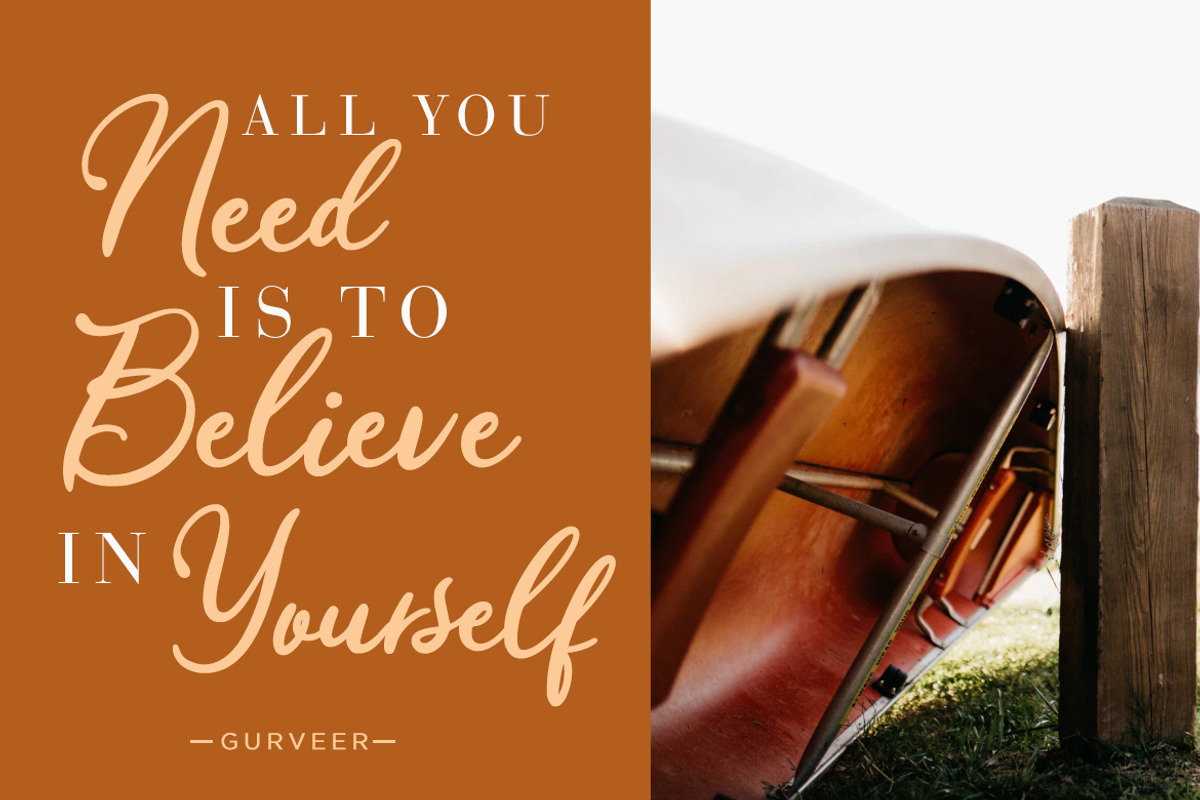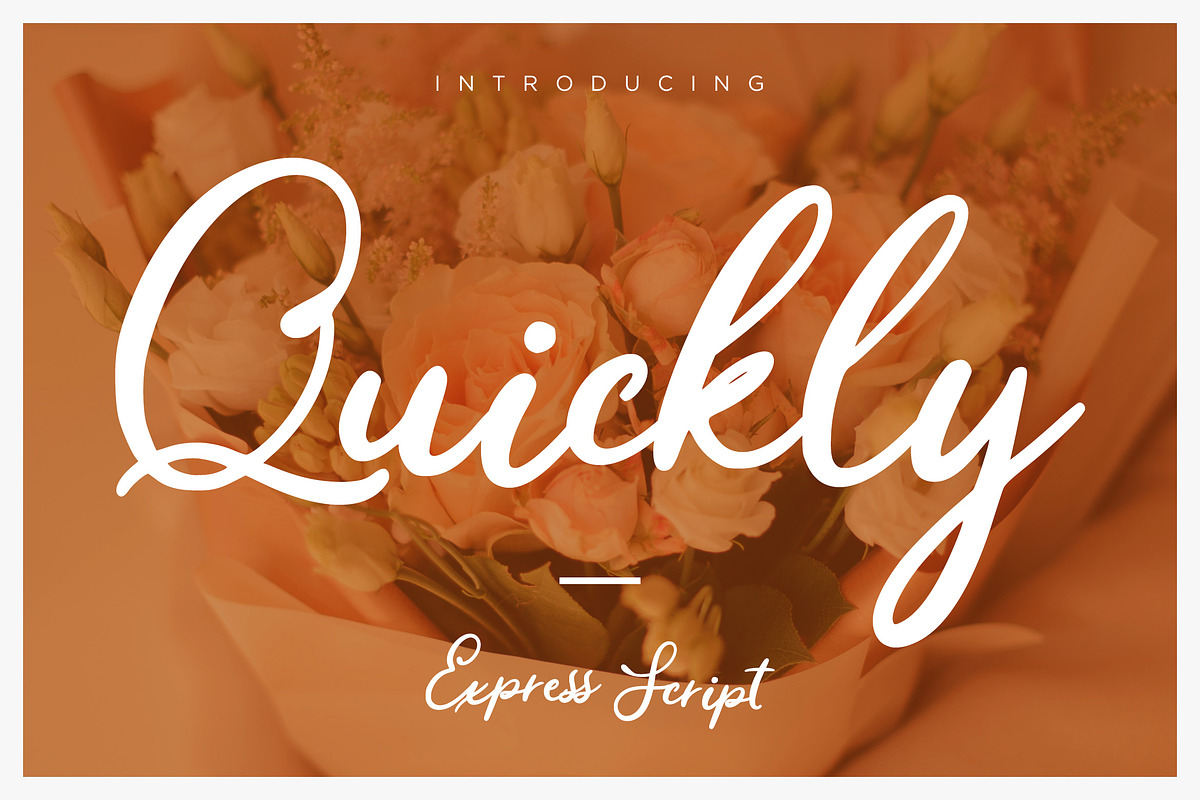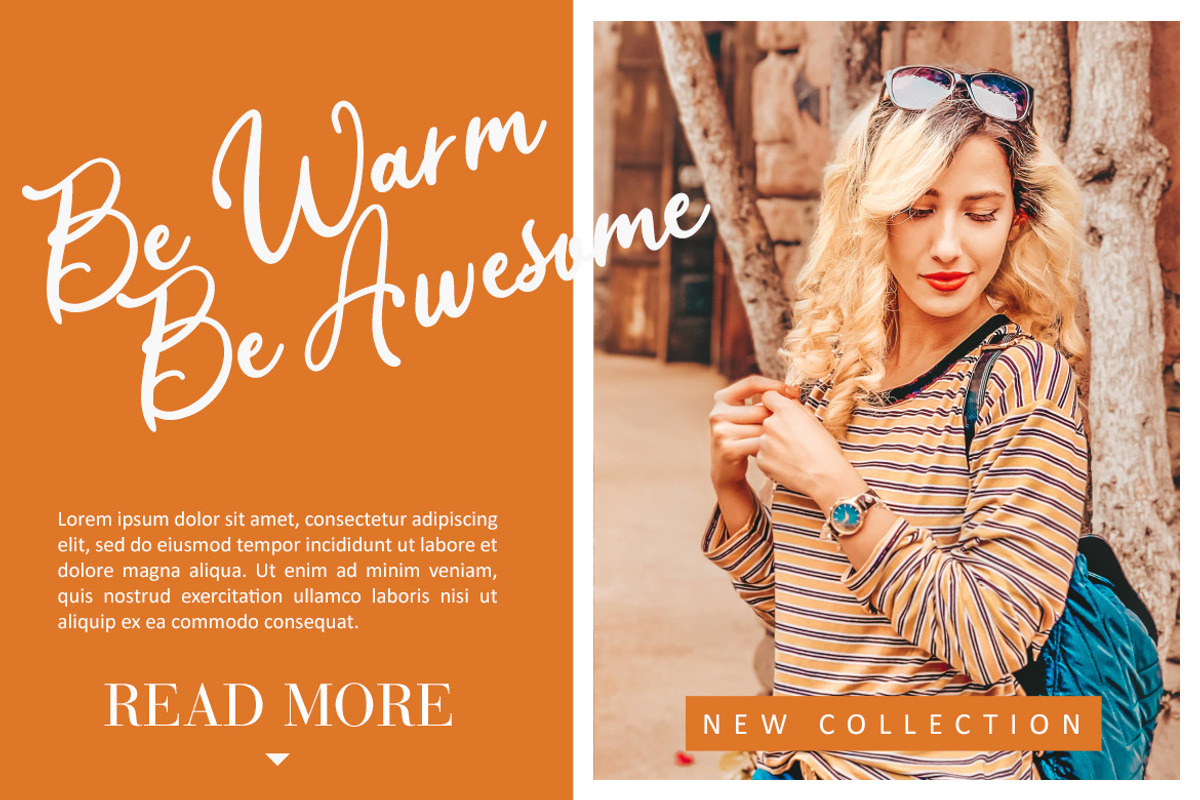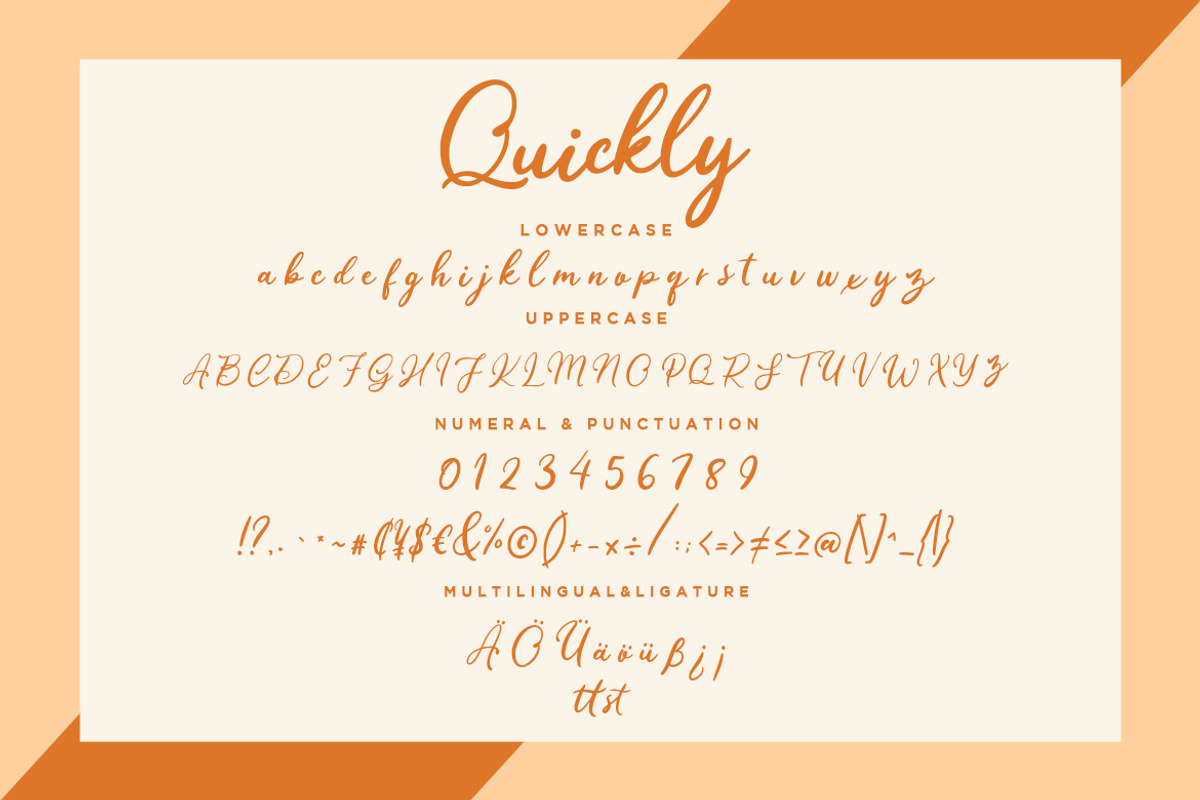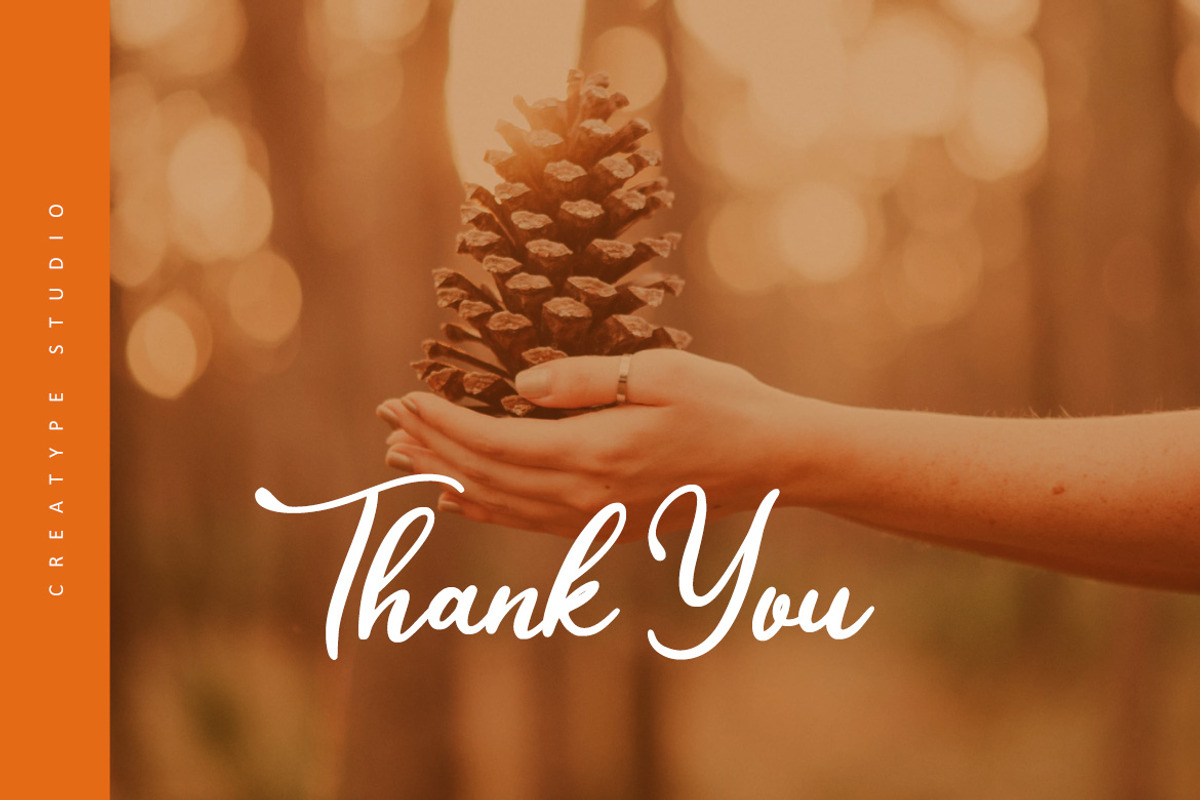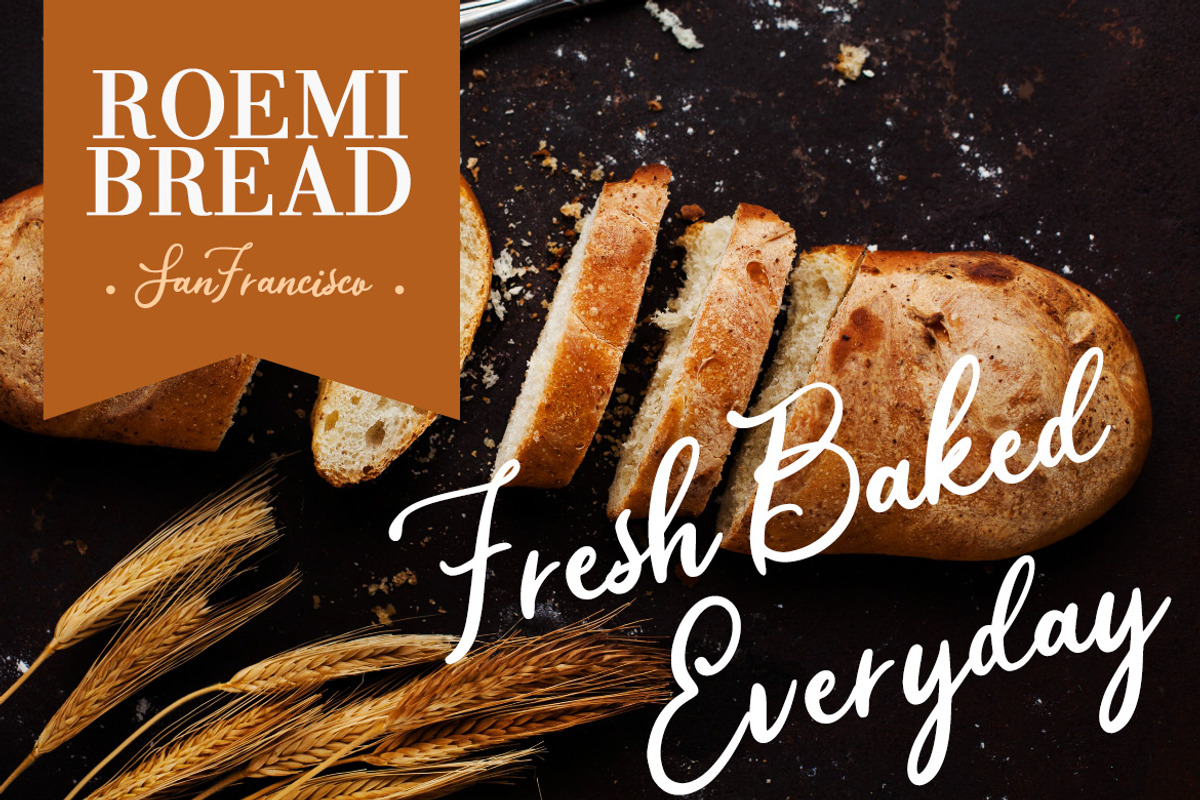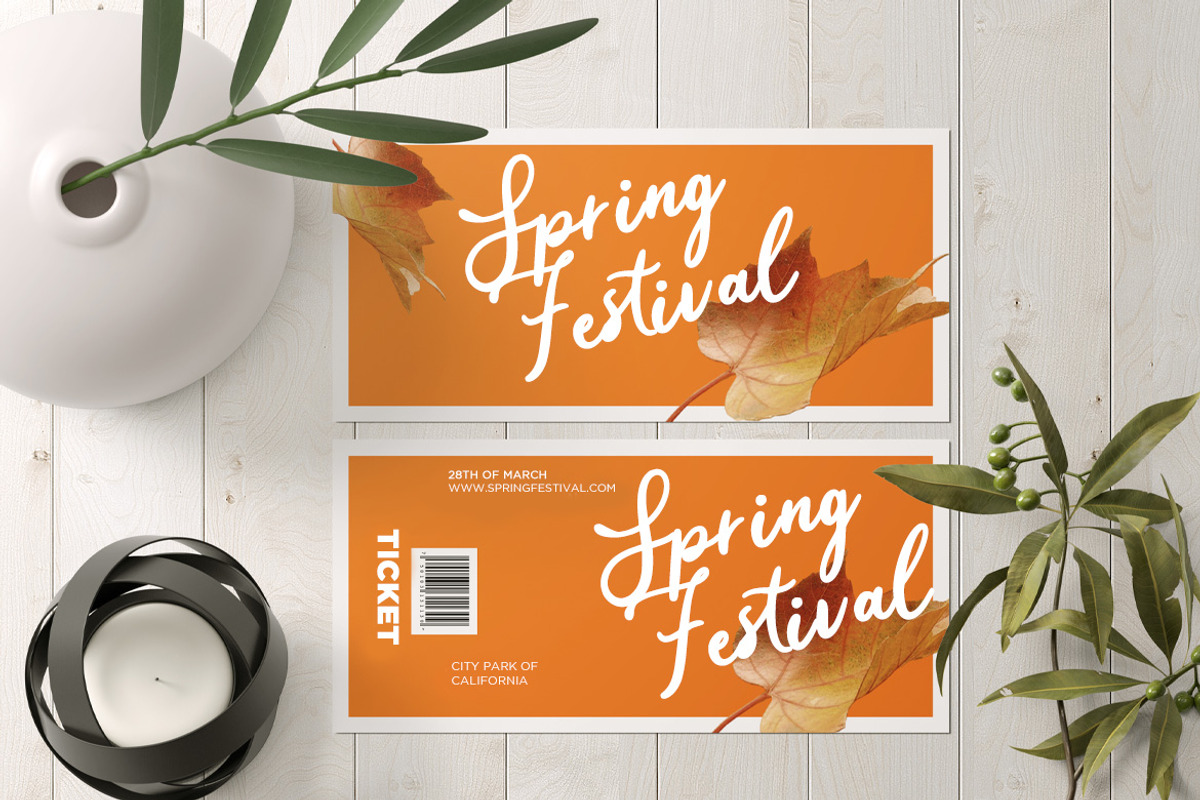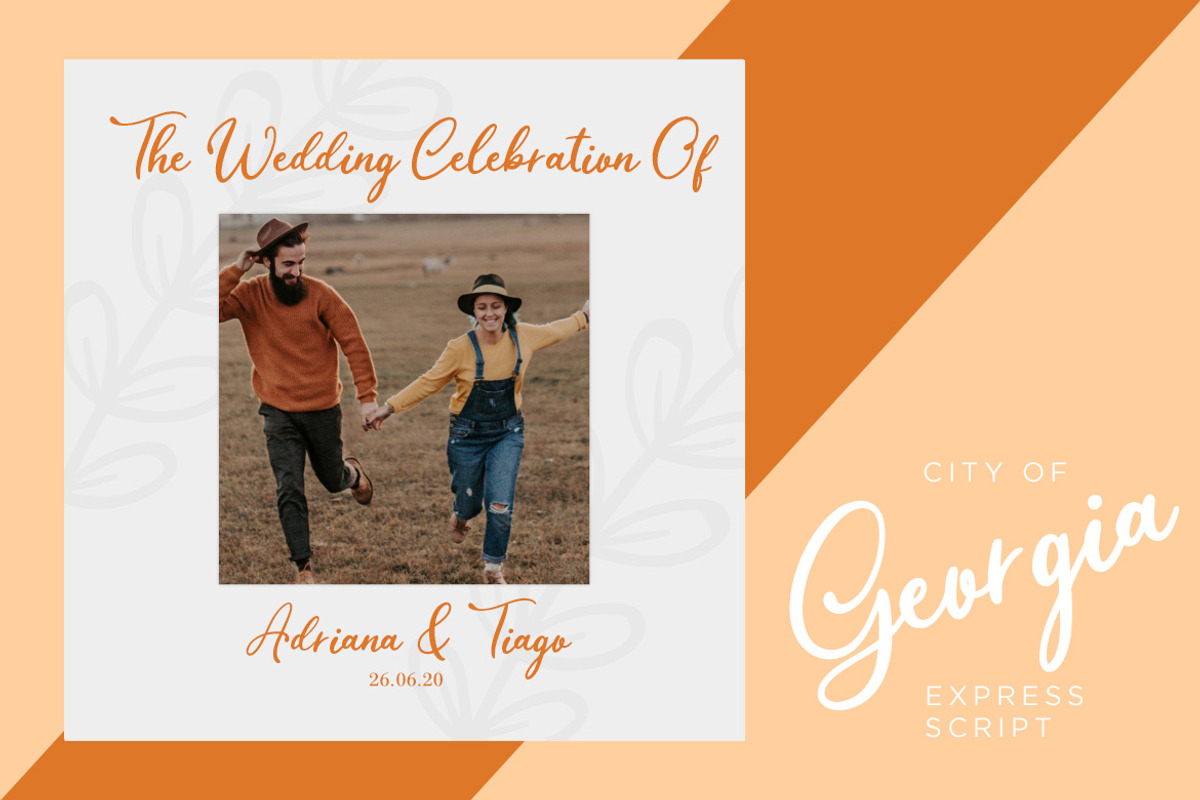
Quickly Express Script Business Font
Quickly is a handwritten signature font with elegant and classy touch for your awesome project.
Quickly is perfect for branding projects, logo, wedding designs, social media posts, advertisements, product packaging, product designs, label, photography, watermark, invitation, stationery and any projects that need handwriting taste.
- Fonts include multilingual support for; ä ö ü Ä Ö Ü ß ¿ ¡
Quickly Express Script Business Font by Creatype Studio fits naturally into Branding, posters, packaging, typography.